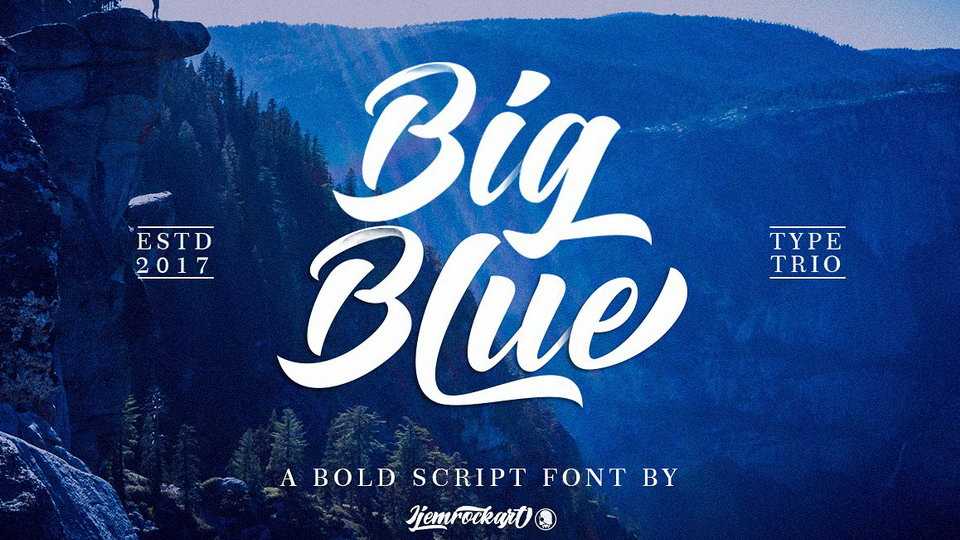
Download Big Blue font – a fancy hand brushed script with authentic Clean and Rough imperfections and a very bouncy baseline. It has a perfectly paired complimentary marker font , and a super handy set of bonus Swash.
Designer: Ferdiansyah